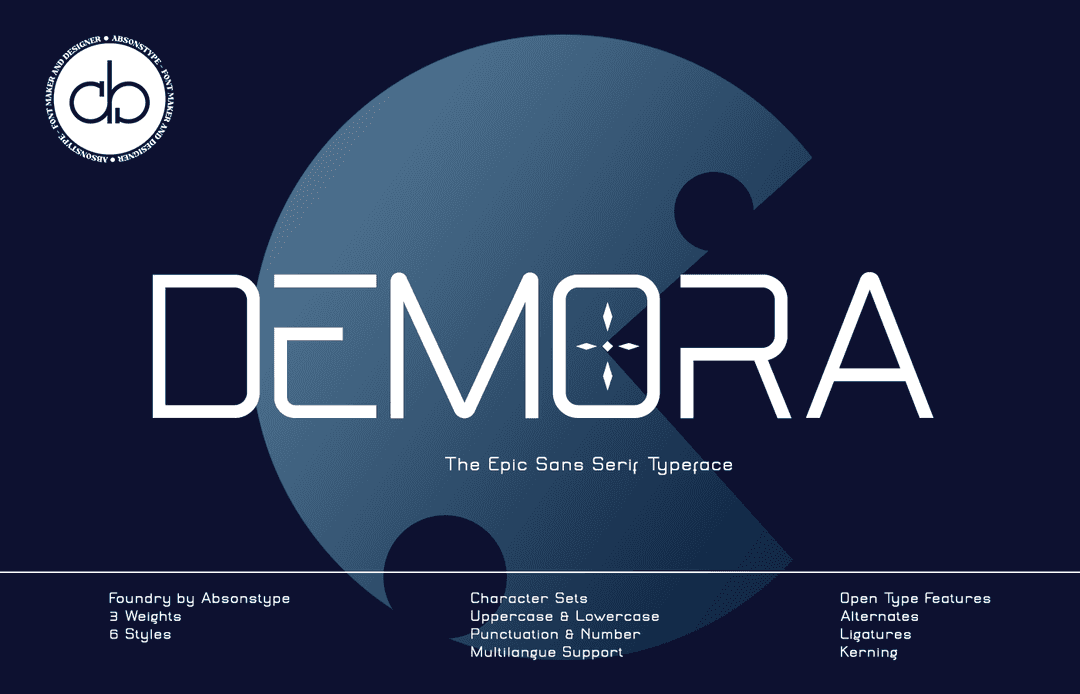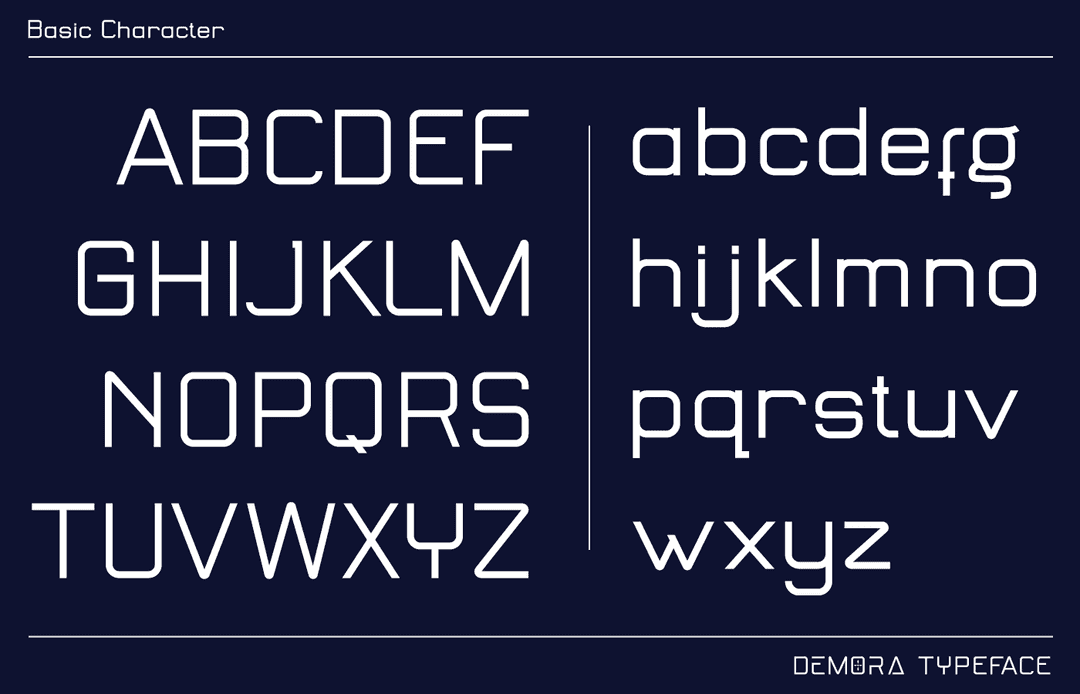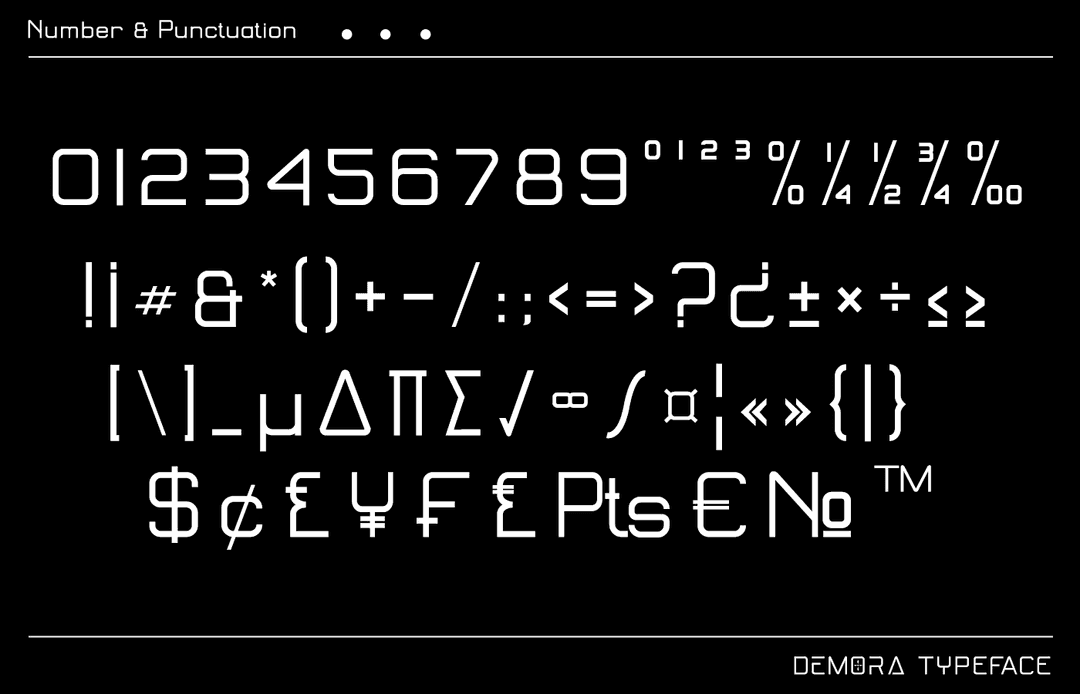
DEMORA font is a sporty sans serif style featuring uppercase and lowercase letters for an appealing, balanced appearance. Ligatures and alternate styles add appeal, making the design letters stand out visually – ideal for posters, headlines, logos packaging T-shirts or more.